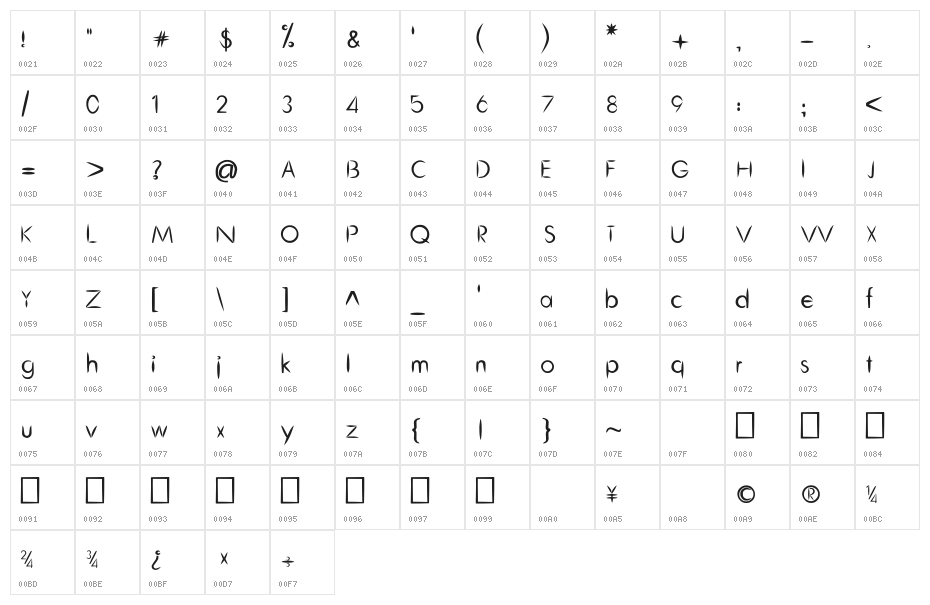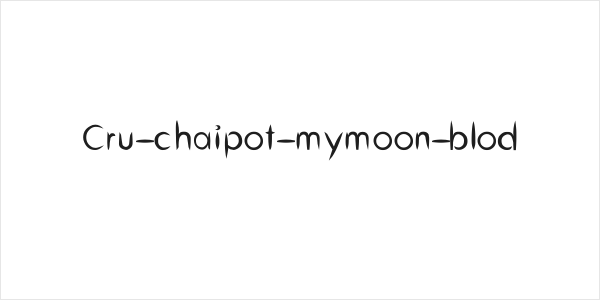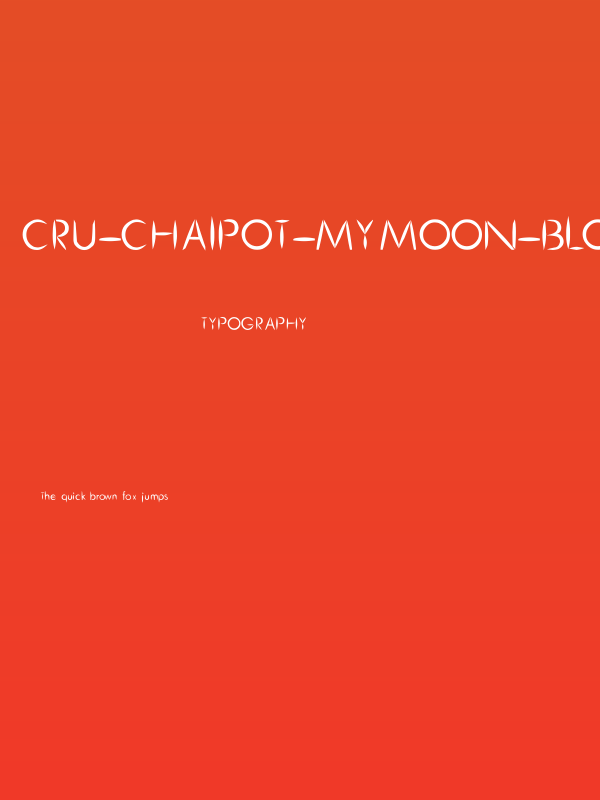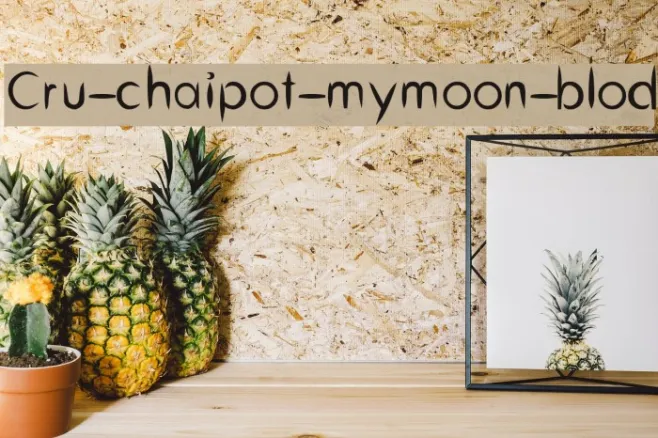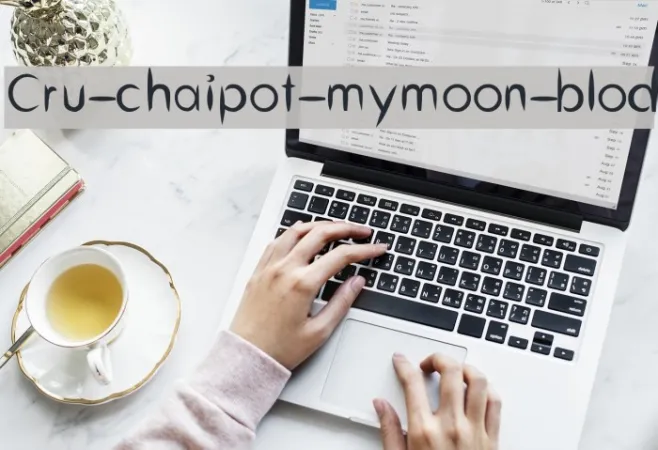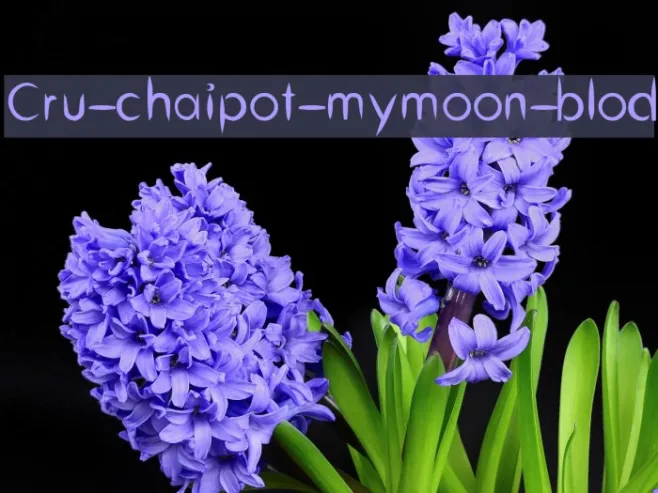
Cru-chaipot-mymoon-blod Font
Cru-chaipot-mymoon-blod Description
This font features a unique and artistic style with sharp, angular edges and a dynamic flow. The uppercase letters are bold and striking, with pointed tips that give a sense of movement and energy. The lowercase letters maintain this angular theme, offering a cohesive look throughout the alphabet. The numerals are consistent with the overall design, providing a modern and edgy appearance. Special characters are creatively integrated, enhancing the font's distinctive personality. This font is ideal for projects that require a bold statement with a touch of creativity and flair.
| Proposed Projects | Ideal for branding, posters, album covers, and creative design projects. |